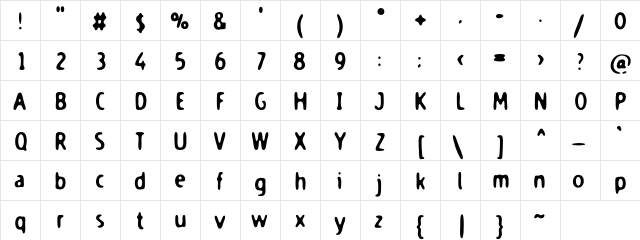
BureaucracyState Regular
Design Context for BureaucracyState Typeface
BureaucracyState offers clean, dependable letterforms without strong stylistic allegiance, making it a practical choice for designers who need flexibility.
Pro Tip: Use BureaucracyState in both headline and body roles to test its range before committing to a single application.